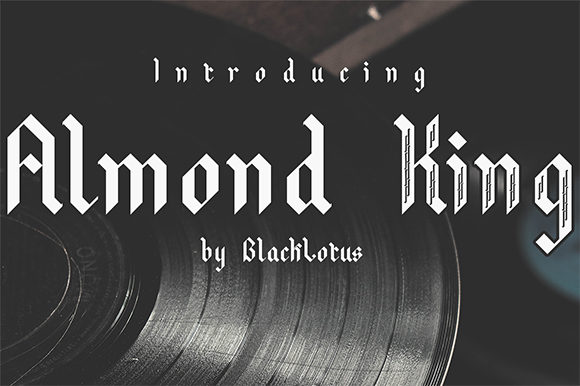
Introducing Almond King, the blackletter font that exudes both boldness and elegance. Step into a world of visual intrigue as you explore the depths of this captivating font. With its strong presence, Almond King makes a statement in any design project, injecting a dash of intrigue and timeless appeal.
Designed by the renowned Black Lotus, Almond King is a font that speaks volumes. Its sharp edges and intricate details demand attention, making it a perfect choice for logos, posters, apparel, and any project seeking a touch of distinction. Whether you're a seasoned designer or just starting, Almond King is your gateway to creating designs that leave a lasting impression.
Dive into the world of Almond King and let your creativity soar. Its blackletter style infuses your designs with a touch of nostalgia, harking back to the days of old manuscripts and historical texts. Yet, Almond King remains distinctly modern, with its clean lines and contemporary aesthetics that blend seamlessly with current design trends.
Unleash the power of Almond King and witness the transformation of your designs. Bold and beautiful, this font adds a layer of sophistication and charisma that sets your work apart from the mundane. It's the perfect companion for projects that demand a touch of the extraordinary, the kind that captivates audiences and leaves them yearning for more.